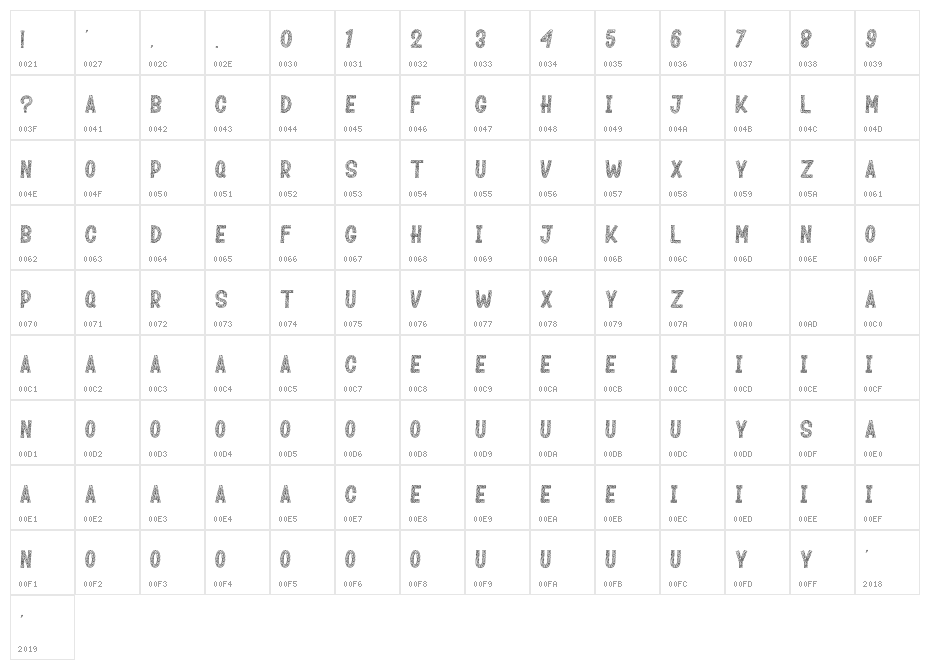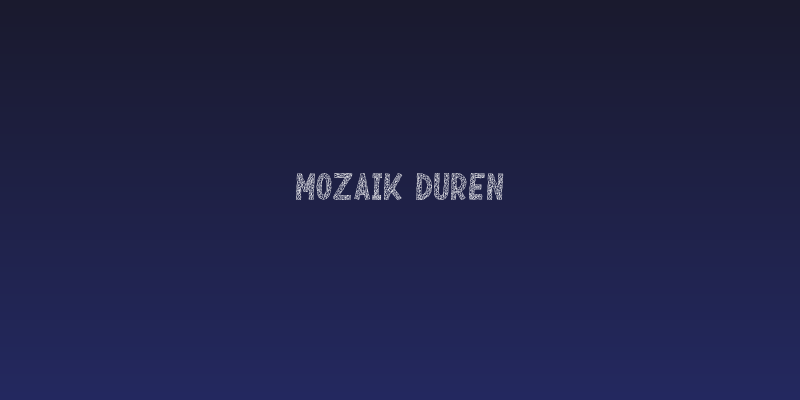
Mozaik Duren Font
Mozaik Duren Description
This font features a unique, decorative style with a mosaic-like pattern filling each character. The uppercase and lowercase letters, as well as numbers, are designed with intricate, interwoven lines that create a textured appearance. The characters maintain a consistent width and height, providing a uniform look across the alphabet. The font's playful and artistic design makes it stand out, offering a creative twist on traditional letterforms. The overall appearance is bold and eye-catching, making it suitable for projects that require a distinctive and artistic touch.
| Proposed Projects | Ideal for creative projects such as posters, invitations, and branding materials that require a unique and artistic flair. |